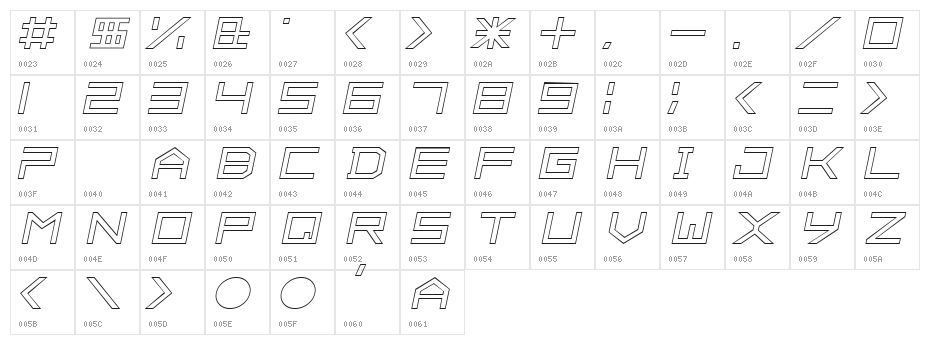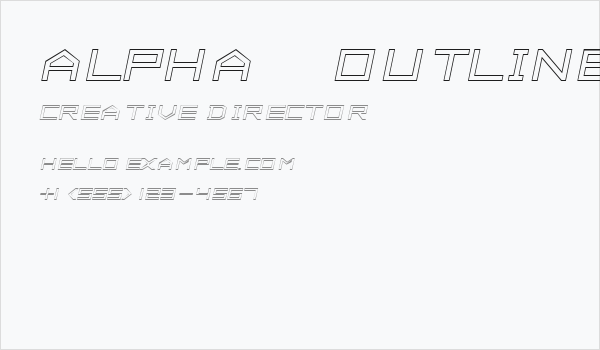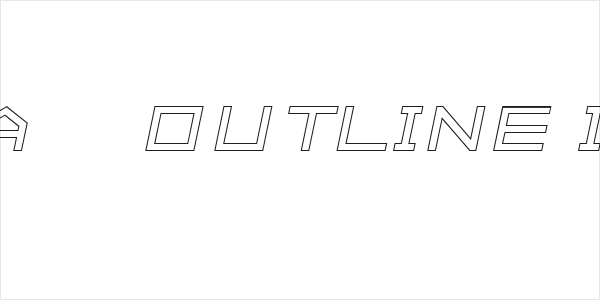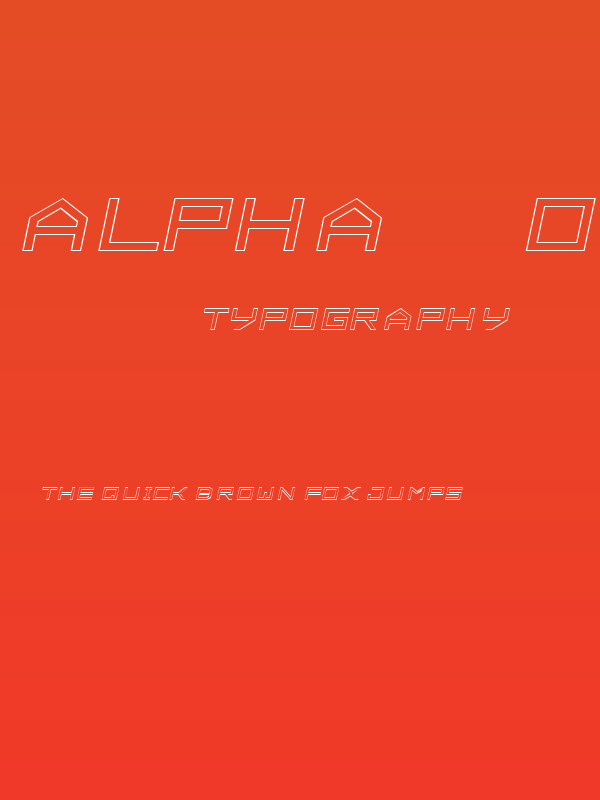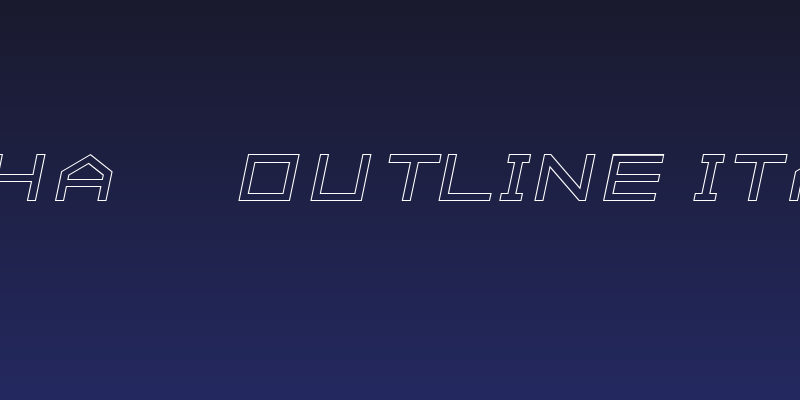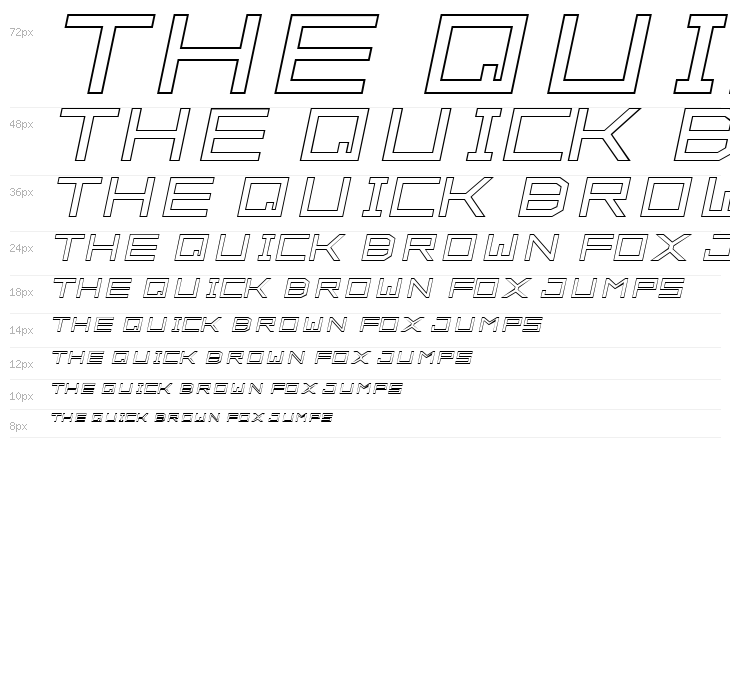
ALPHA OUTLINE Italic Font
ALPHA OUTLINE Italic Description
This font features a modern, geometric outline style with an italic slant, giving it a dynamic and futuristic appearance. The characters are constructed with clean, sharp lines and angles, creating a sense of precision and technicality. The uppercase and lowercase letters maintain a consistent design, with the uppercase letters exhibiting a slightly more pronounced angularity. The numerals and special characters follow the same outlined aesthetic, ensuring uniformity across all glyphs. This font's outline nature makes it ideal for designs that require a bold yet airy presence, allowing for creative layering and color play.
| Proposed Projects | Perfect for technology branding, futuristic posters, digital artwork, and innovative product packaging. |